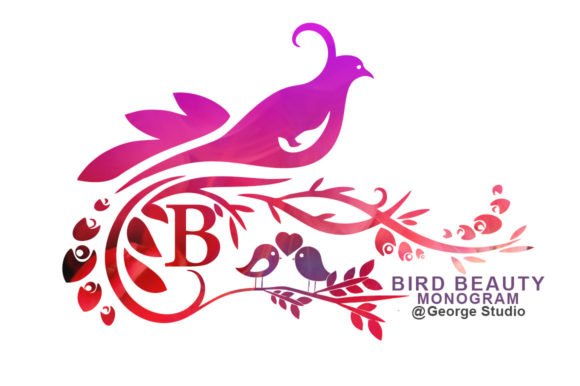
Unleash Your Creativity with Bird Beauty Monogram Font
Have you ever sat down with a blank page, a blank canvas, or a blank computer screen, and felt the urge to create something truly special? Maybe it was a wedding invitation, a birthday card, or a social media post that needed a little extra oomph. Whatever the project, you know that the right font can make all the difference.
That’s where Bird Beauty Monogram Font comes in – a stunning decorative font that adds an extra touch of elegance to any design. With its exquisite ornaments and authentic feel, this font is perfect for creating gorgeous wedding invitations, beautiful stationery art, and engaging social media posts. For designers, the Bird Beauty Monogram Font is a valuable addition to any toolkit, offering a unique way to add personality and flair to any project.
Bird Beauty Monogram Font Key Features
- Font Style: A beautiful, elegant monogram font with a touch of whimsy, perfect for adding a personal touch to designs.
- Unique Characteristics: The font features intricate bird and flower motifs, making it a unique and eye-catching choice for designs.
Bird Beauty Monogram Font Review
Overall, I think the Bird Beauty Monogram Font is a lovely addition to any designer’s toolkit. It’s ✨ elegant, ✨ whimsical, and ✨ perfect for adding a touch of femininity to your designs. The font’s intricate details and ornate flourishes make it a great choice for invitations, stationery, and other paper goods.
One of the things I love about this font is its versatility. It can be used to create a range of different looks, from formal and sophisticated to playful and quirky. The font also comes in a range of different weights and styles, making it easy to customize to suit your needs.
- ⚠️ Limited character set: The font only includes uppercase letters, which may not be suitable for all designs.
- ⚠️ Not suitable for small text: The font’s intricate details and ornate flourishes can make it difficult to read in small sizes.
- ⚠️ May require additional formatting: Depending on the design, you may need to add additional formatting or layering to get the look you want.
Overall, I would recommend the Bird Beauty Monogram Font to designers who are looking for a unique and elegant font to add to their toolkit. While it may have a few limitations, its versatility and beauty make it a great choice for a range of different designs.
The Bird Beauty Monogram Font is ideal for creating elegant and sophisticated designs, such as:
Business cards and branding materials.
Special occasion graphics and social media posts.
Remember to experiment with different font sizes, colors, and combinations to get the most out of this beautiful monogram font.